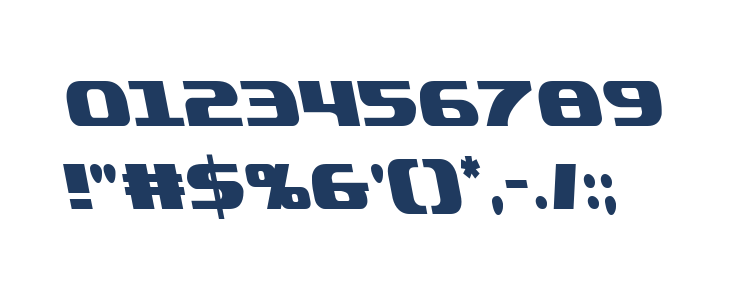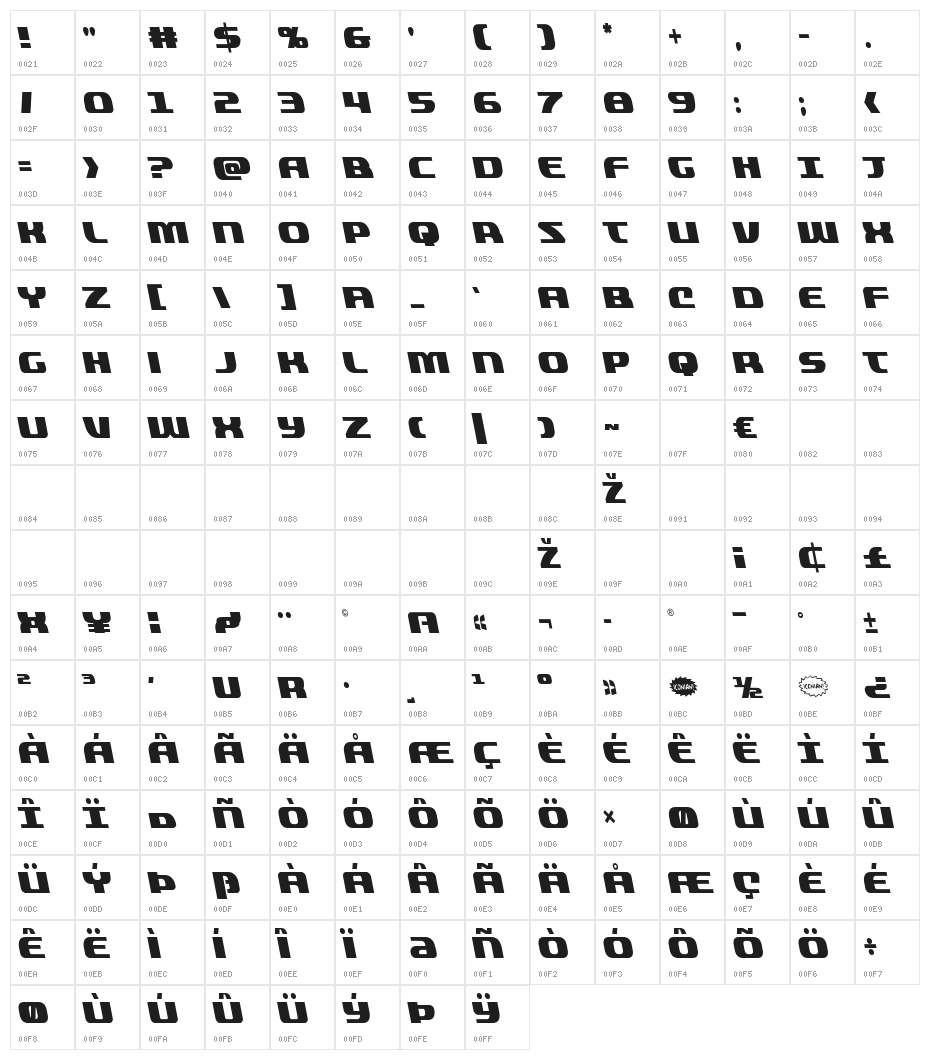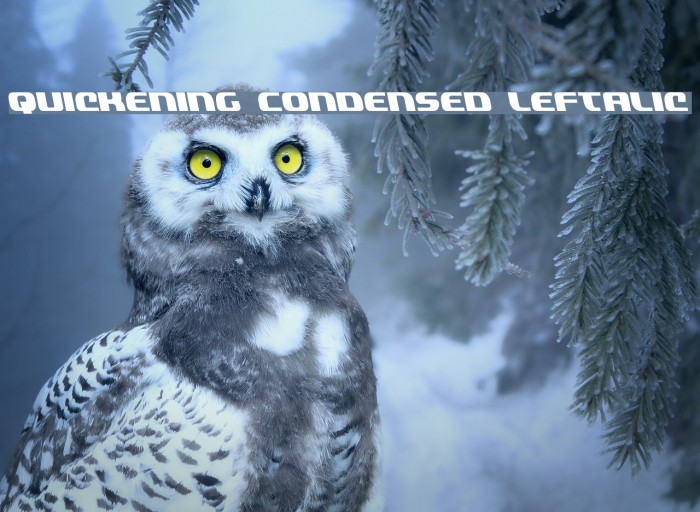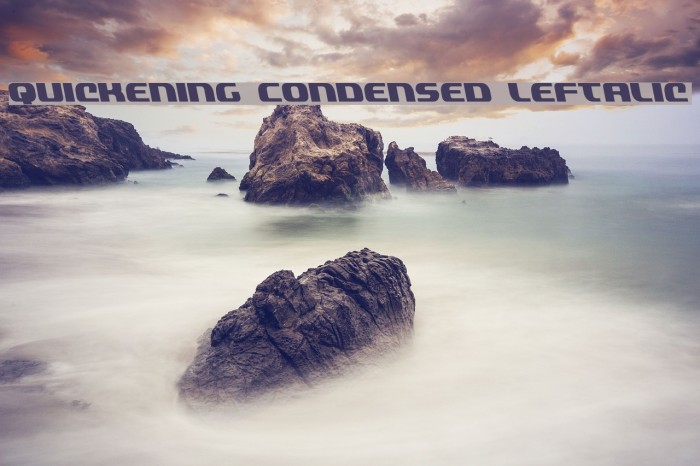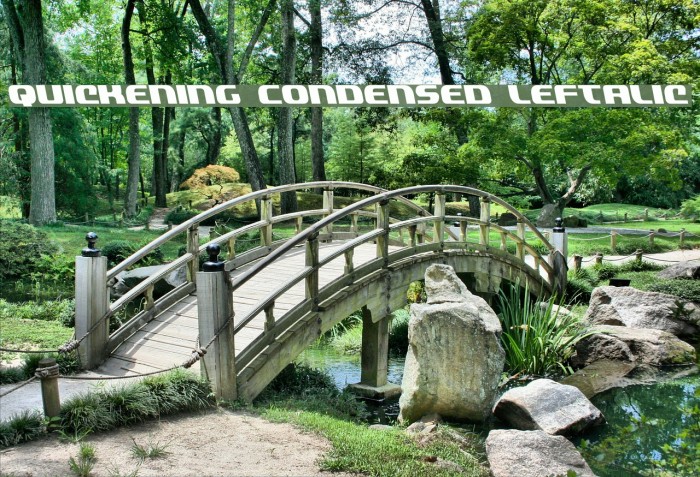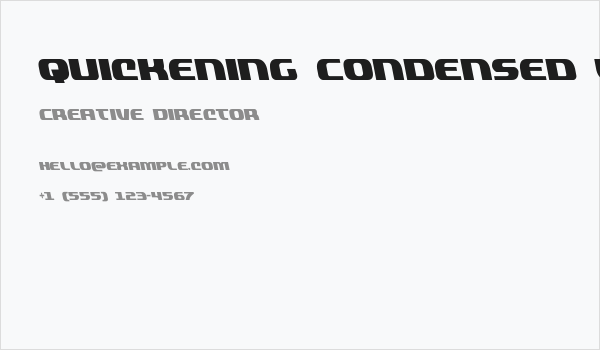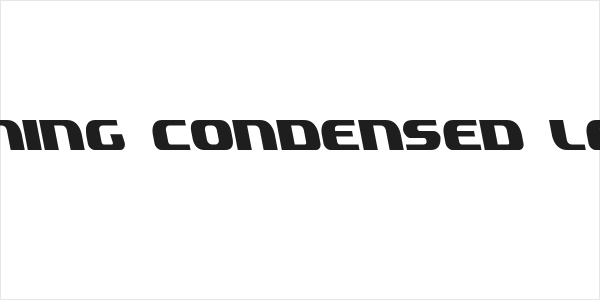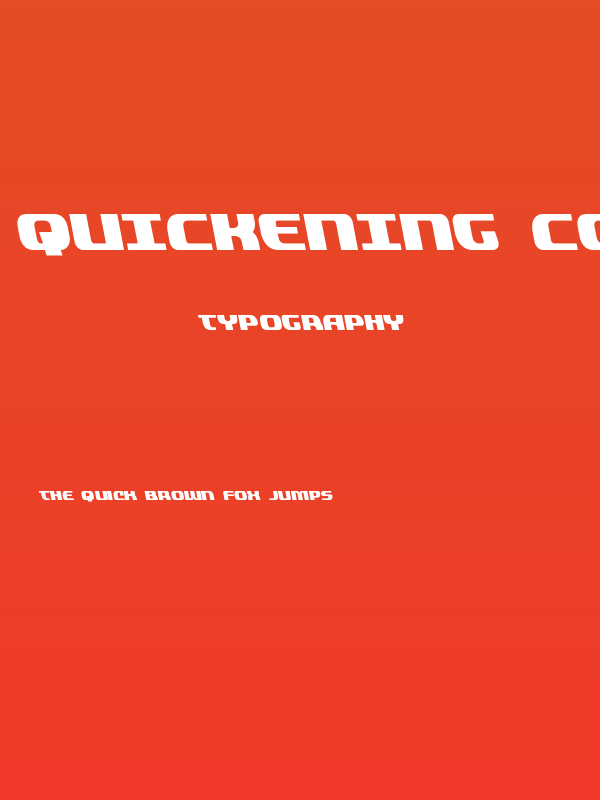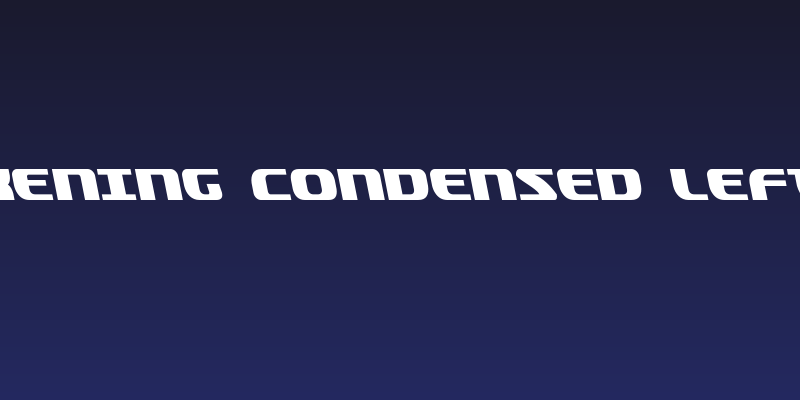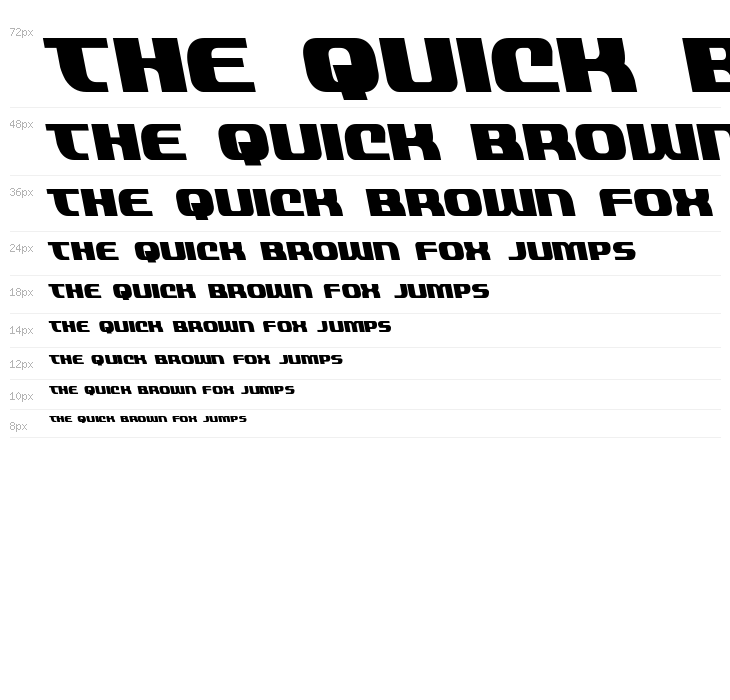
Quickening Condensed Leftalic Font
Quickening Condensed Leftalic Description
This font features a bold and dynamic style with a condensed width and a left-leaning italic slant. The characters are robust and impactful, making them ideal for attention-grabbing designs. The uppercase and lowercase letters maintain a consistent weight, providing a uniform appearance. The numbers and special characters are designed to match the boldness of the alphabet, ensuring a cohesive look across all text elements. The font's unique style is characterized by its thick strokes and minimal contrast, giving it a modern and edgy feel.
| Proposed Projects | Ideal for sports branding, dynamic posters, edgy advertisements, and modern logo designs. |